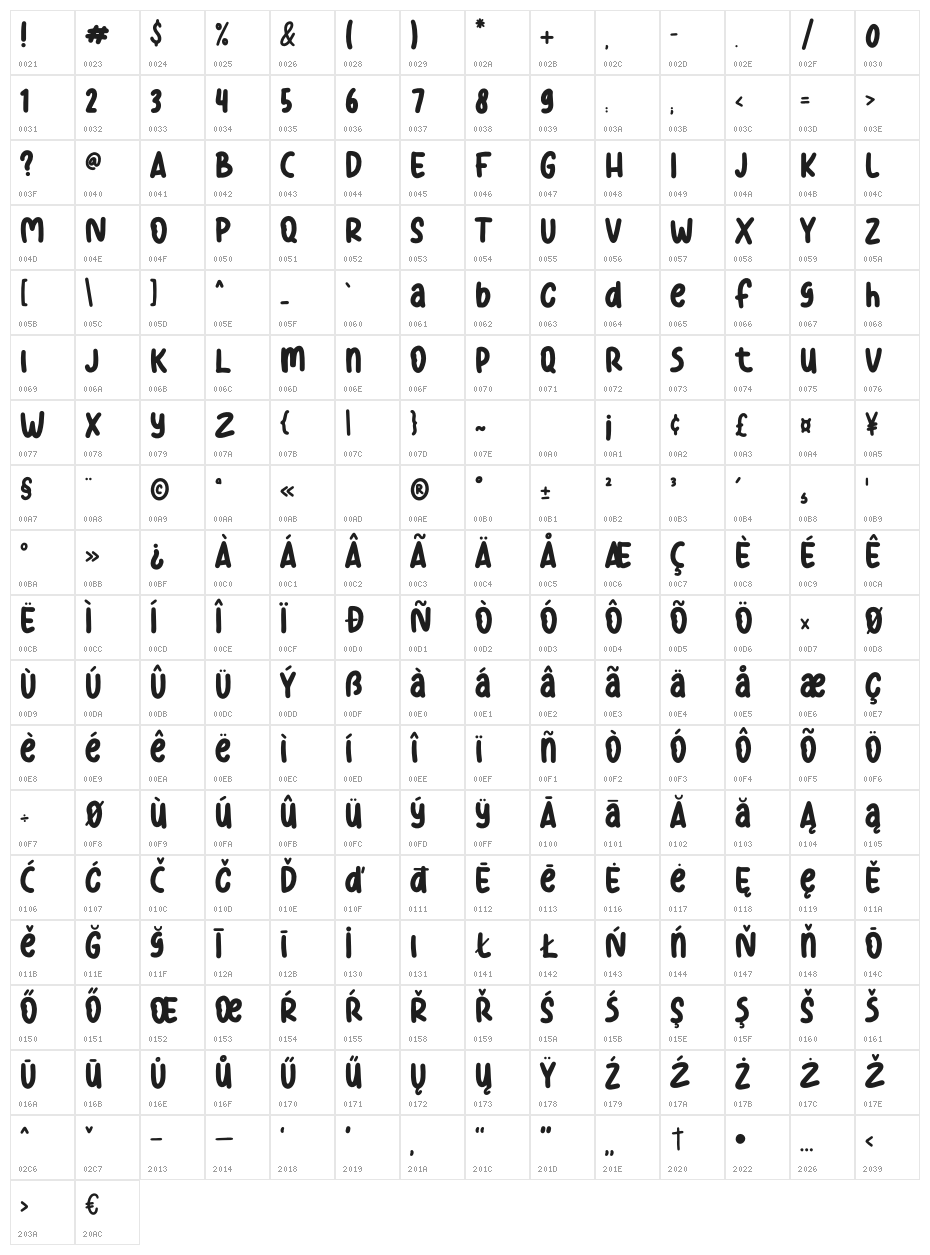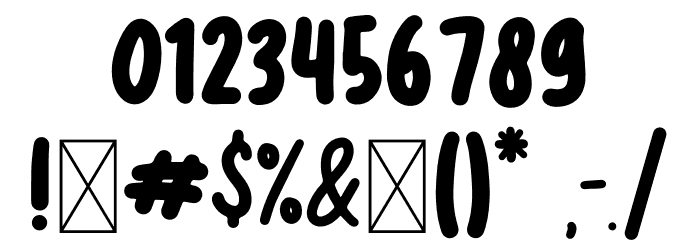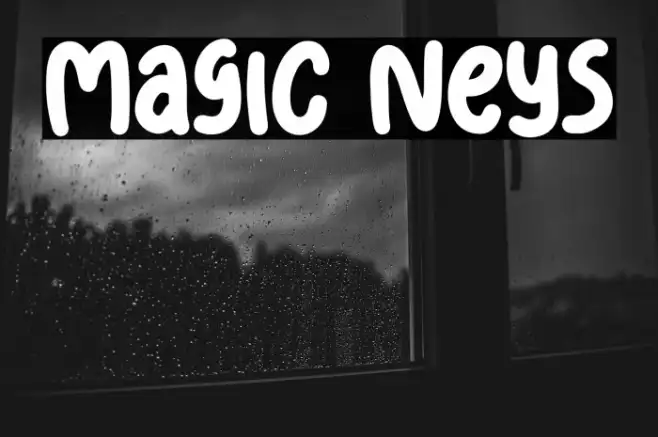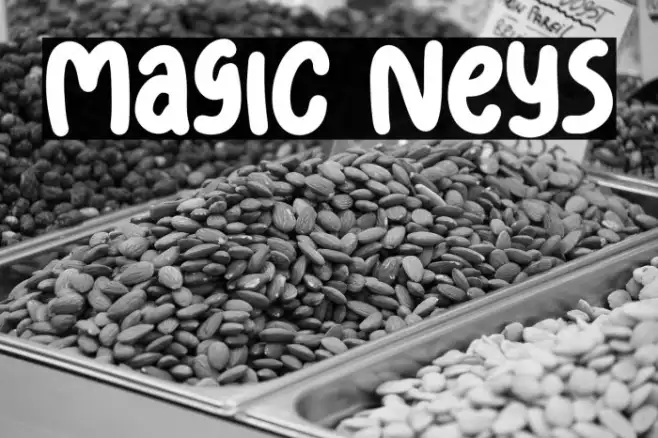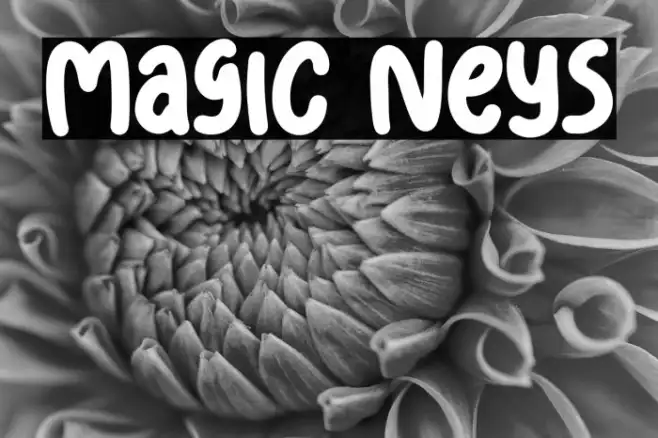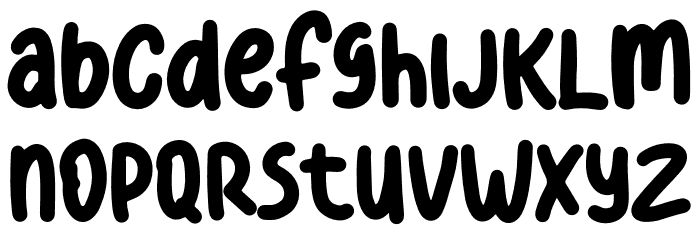
Magic Neys Font
Magic Neys Description
This playful and bold font features rounded edges and a hand-drawn aesthetic, giving it a friendly and approachable feel. The characters are thick and consistent in weight, with a slightly irregular shape that adds a whimsical touch. The uppercase and lowercase letters maintain a cohesive style, while the numerals and special characters complement the overall design. This font's unique personality makes it ideal for projects that require a fun and informal tone.
| Proposed Projects | Perfect for children's books, playful branding, greeting cards, and casual posters. |